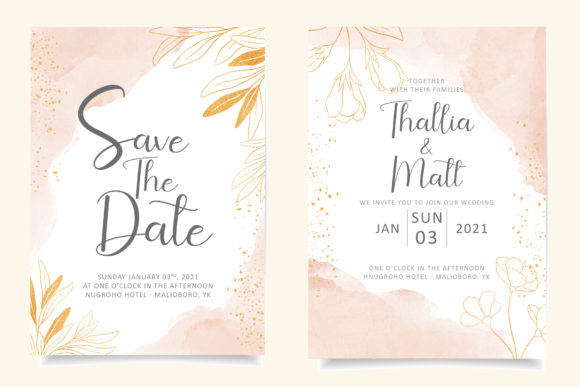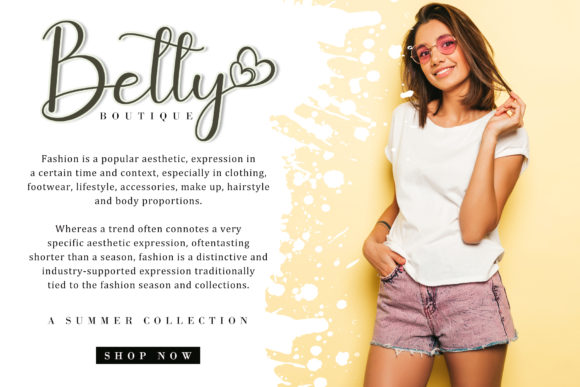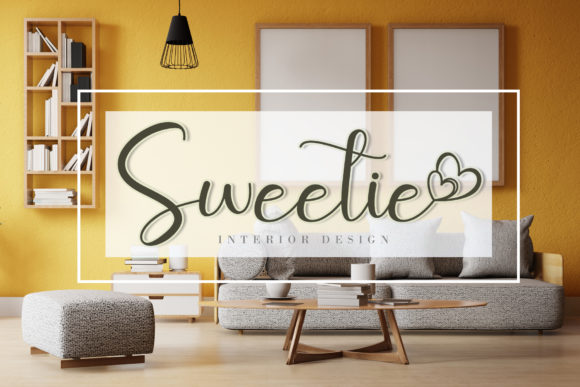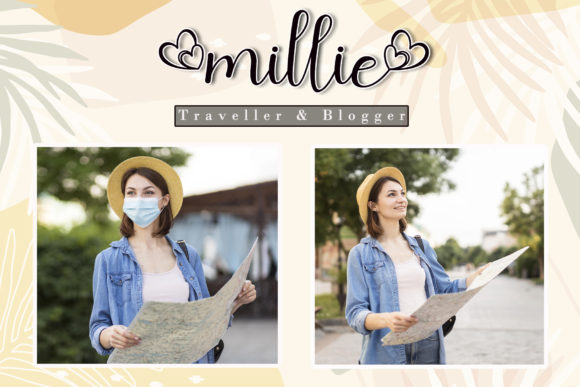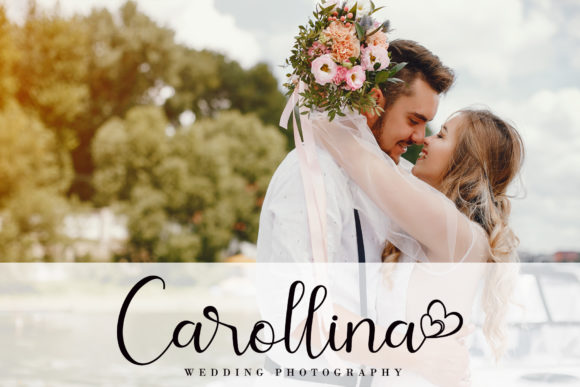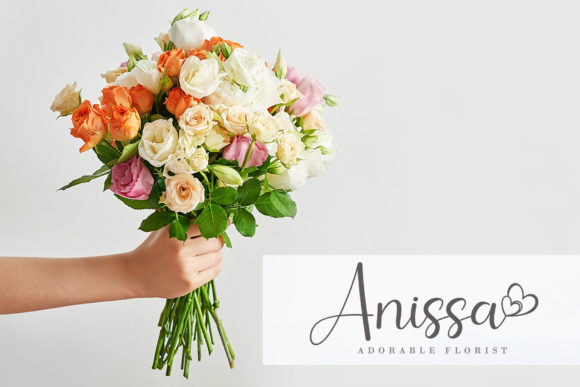
Discover the Elegance of Amillina Font: A Delicate Handwritten Font for Creative Designs
Are you a designer or crafter looking for a font that can add a touch of elegance and sophistication to your creative projects? Look no further than Amillina Font, a delicate, elegant, and flowing handwritten font that is sure to make your designs come alive. In this article, we’ll take a closer look at the features and benefits of Amillina Font, and explore how you can use it to take your designs to the next level.
A Delicate and Elegant Font for Creative Designs
Amillina Font is a beautiful, handwritten font that is characterized by its delicate and elegant strokes. The font has a flowing, cursive style that is perfect for creating sophisticated and eye-catching designs. Whether you’re working on a logo, a poster, a wedding invitation, or any other type of design project, Amillina Font is sure to add a touch of class and elegance.
One of the standout features of Amillina Font is its well-balanced characters. Each letter has been carefully crafted to ensure that it looks beautiful on its own, and also in combination with other letters. This makes it easy to create harmonious and visually appealing text that flows smoothly and catches the eye.
A Versatile Font for a Wide Range of Designs
Amillina Font is a versatile font that can be used for a wide range of designs. Whether you’re working on a feminine or masculine design, a modern or vintage project, or a digital or print design, Amillina Font is sure to fit the bill. The font’s elegant and flowing style makes it perfect for designs that require a touch of sophistication and refinement.
Some examples of designs that Amillina Font would be perfect for include:
- Digital and print magazines
PUA Encoded for Easy Access to Glyphs and Swashes
Amillina Font is PUA (Private Use Area) encoded, which means that you can access all of the glyphs and swashes with ease. This makes it easy to add extra flair and personality to your designs, and to create unique and eye-catching text that stands out from the crowd.
With PUA encoding, you can access a wide range of glyphs and swashes, including:
- Alternate letters and characters
- Swashes and flourishes
- Ligatures and ornaments
Tips for Using Amillina Font in Your Designs
Here are a few tips for using Amillina Font in your designs:
- Use Amillina Font as a headline font to add a touch of elegance and sophistication to your designs.
- Pair Amillina Font with a sans-serif font to create a beautiful and harmonious contrast.
- Experiment with different glyphs and swashes to add extra flair and personality to your designs.
- Use Amillina Font to create beautiful and eye-catching text that flows smoothly and catches the eye.
In conclusion, Amillina Font is a beautiful and elegant handwritten font that is perfect for designers and crafters looking to add a touch of sophistication and refinement to their creative projects. With its delicate and flowing style, well-balanced characters, and PUA encoding, Amillina Font is a versatile font that can be used for a wide range of designs. And the best part? It’s available for free! So download Amillina Font today and start using it to create stunning designs that will impress your clients and audience.